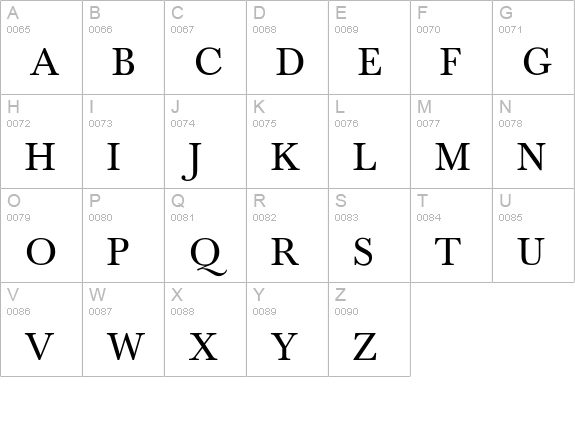
Baskerville-Normal Font Details
Baskerville-Normal is the standard, neutral variant in the Baskerville typeface family \xE2\x80\x94 well suited to general body text, paragraphs, and standard typographic work.
Baskerville-Normal is a classic serif font that exudes elegance and sophistication. With its clean lines and timeless design, this font is perfect for a wide range of projects, from formal invitations to professional documents. The balanced contrast between thick and thin strokes gives Baskerville-Normal a refined appearance that is both traditional and modern. One of the best features of Baskerville-Normal is that it is available for free download at FontsMarket.com. This means you can easily access this high-quality font without any cost, making it a valuable addition to your font collection. Whether you're looking to add a touch of sophistication to your design or simply want a reliable serif font for your next project, Baskerville-Normal is a versatile choice that won't disappoint.